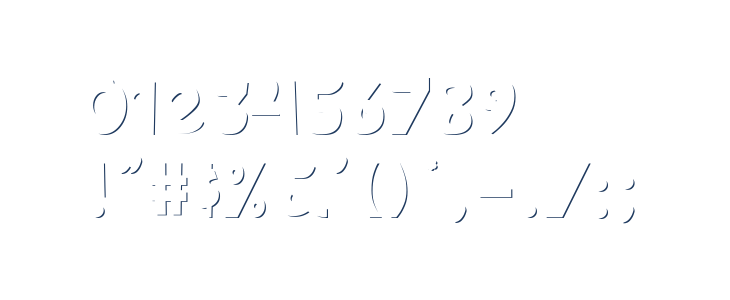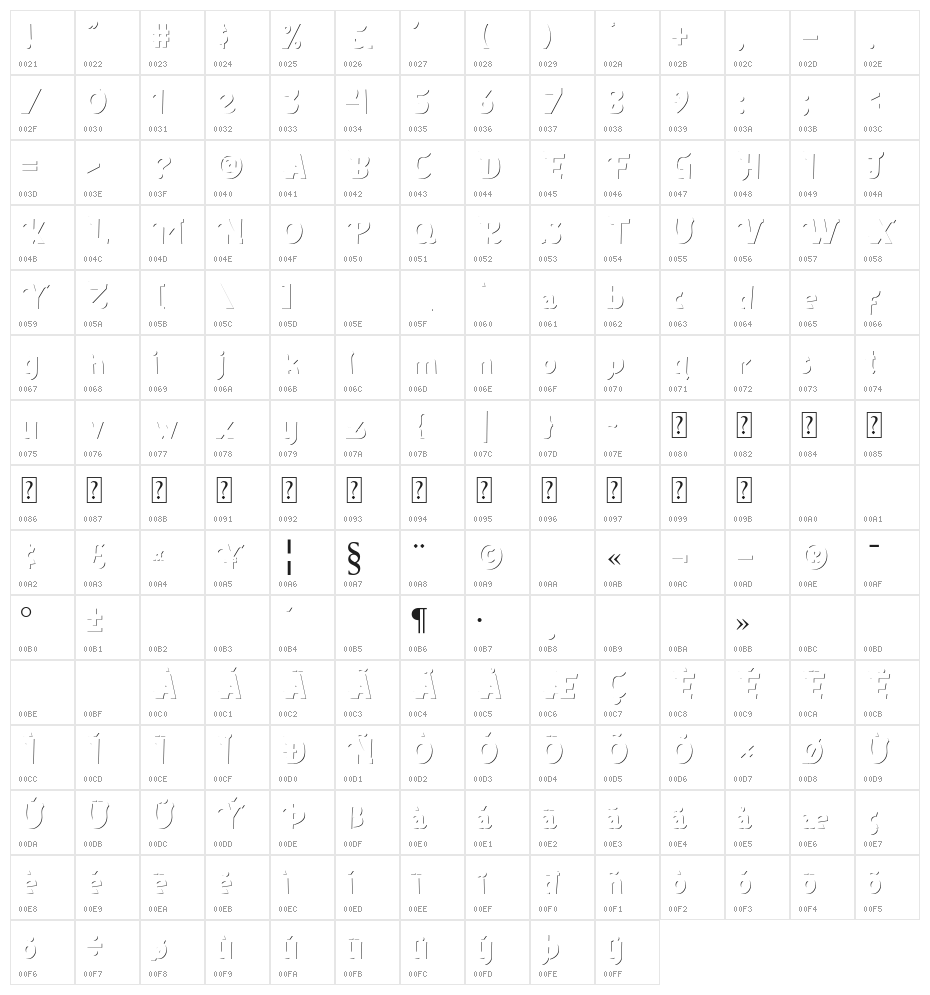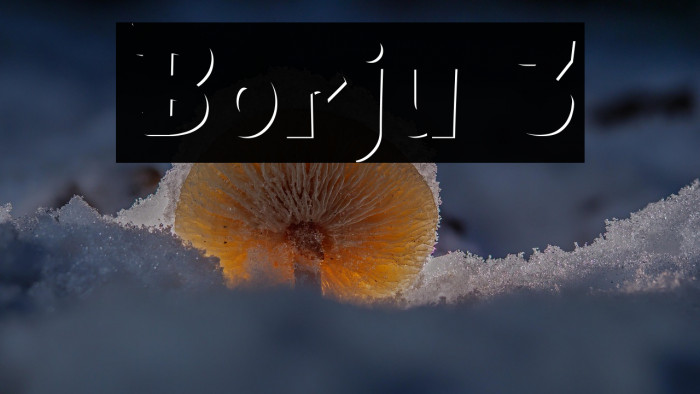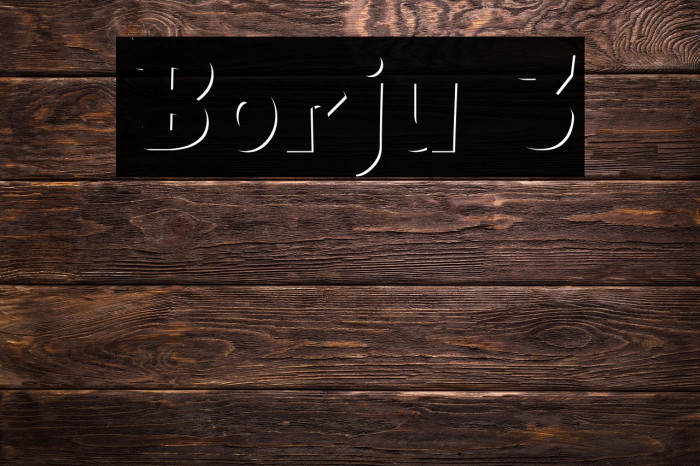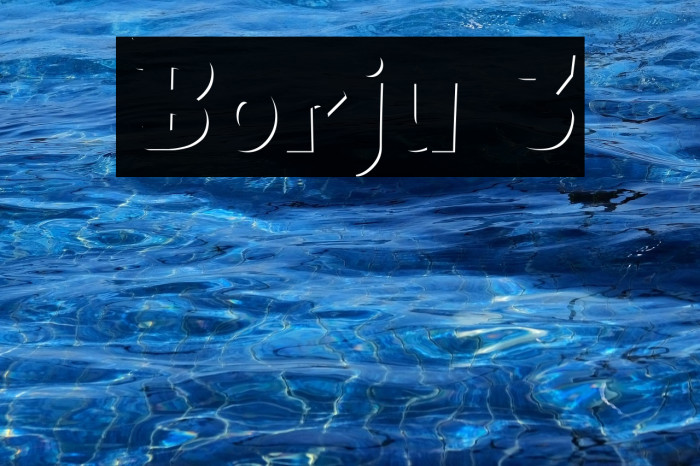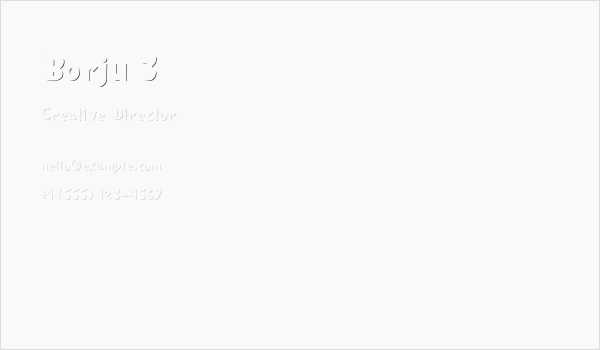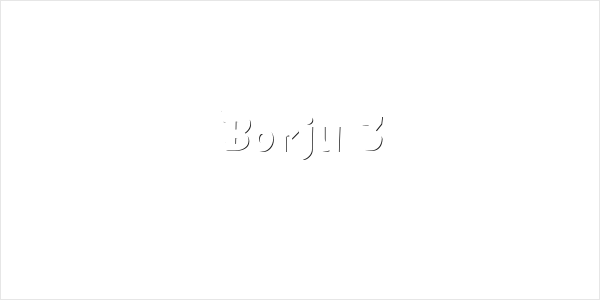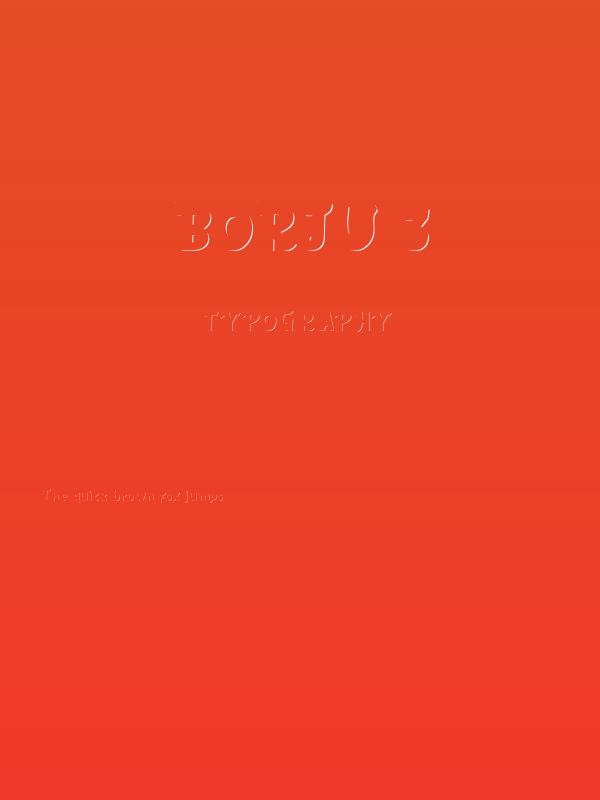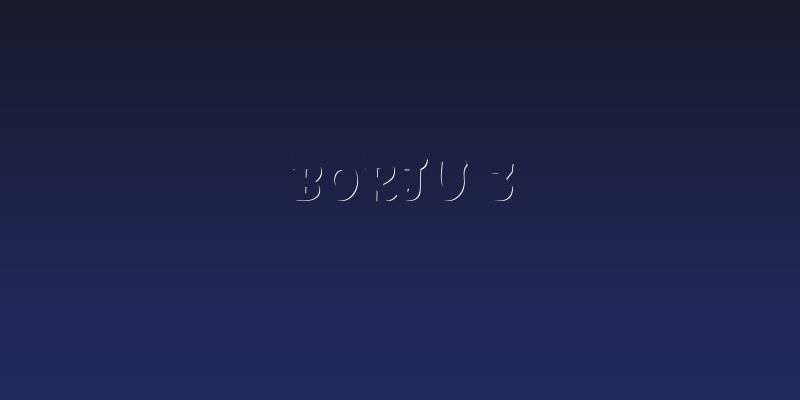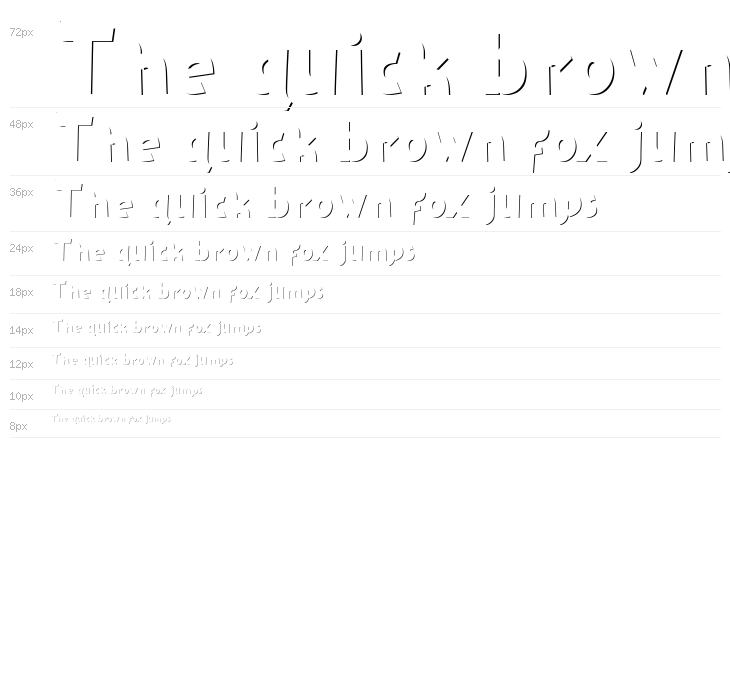
Borju 3 Font
Borju 3 Description
This font features a modern, geometric design with a distinct stencil-like appearance. The characters are composed of clean, straight lines and sharp angles, giving it a futuristic and industrial feel. The uppercase and lowercase letters maintain a consistent style, with some characters having unique cuts and gaps that add to its distinctive look. The numerals and special characters follow the same design principles, ensuring uniformity across the typeface. This font is ideal for projects that require a bold and contemporary aesthetic.